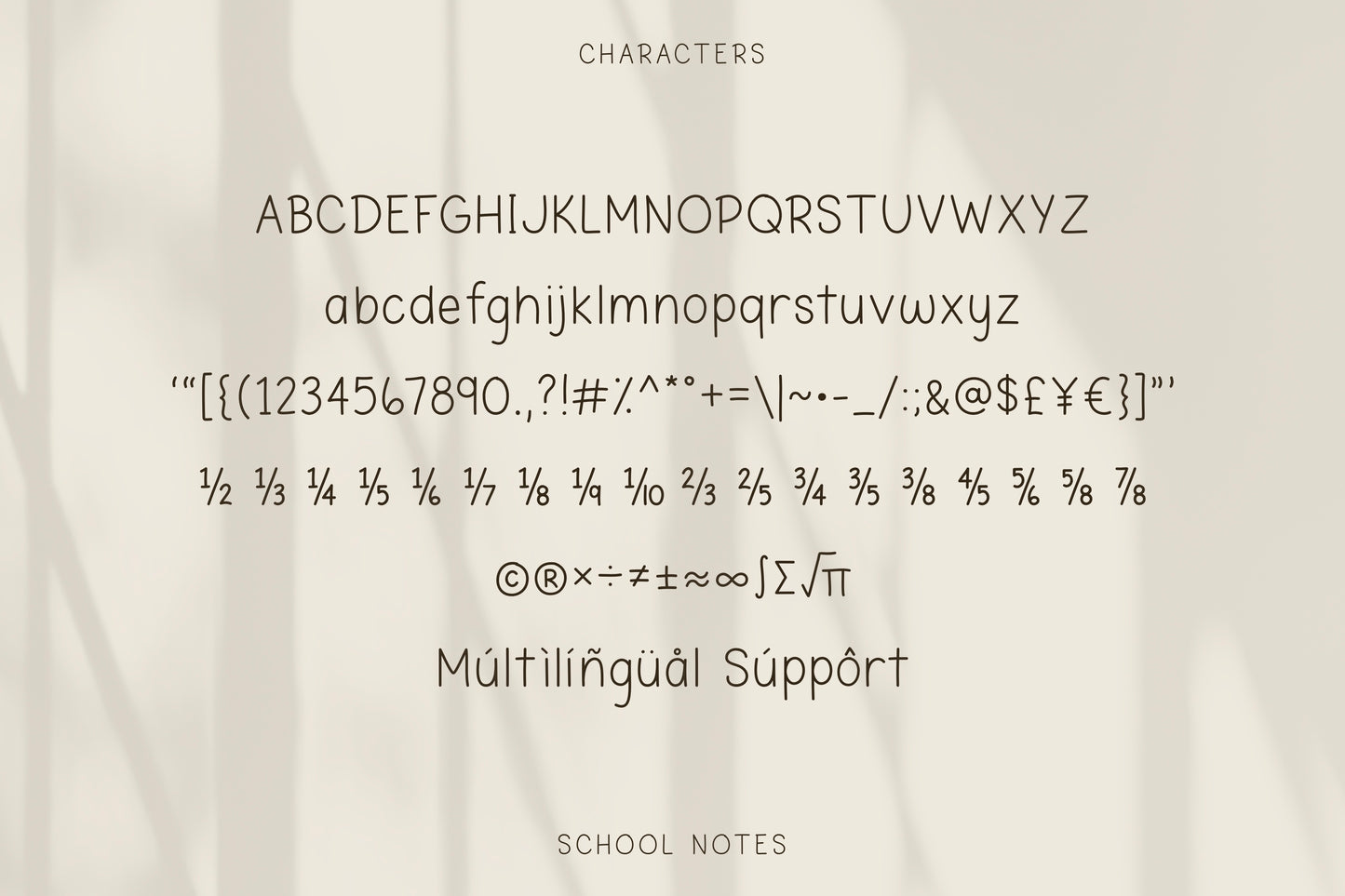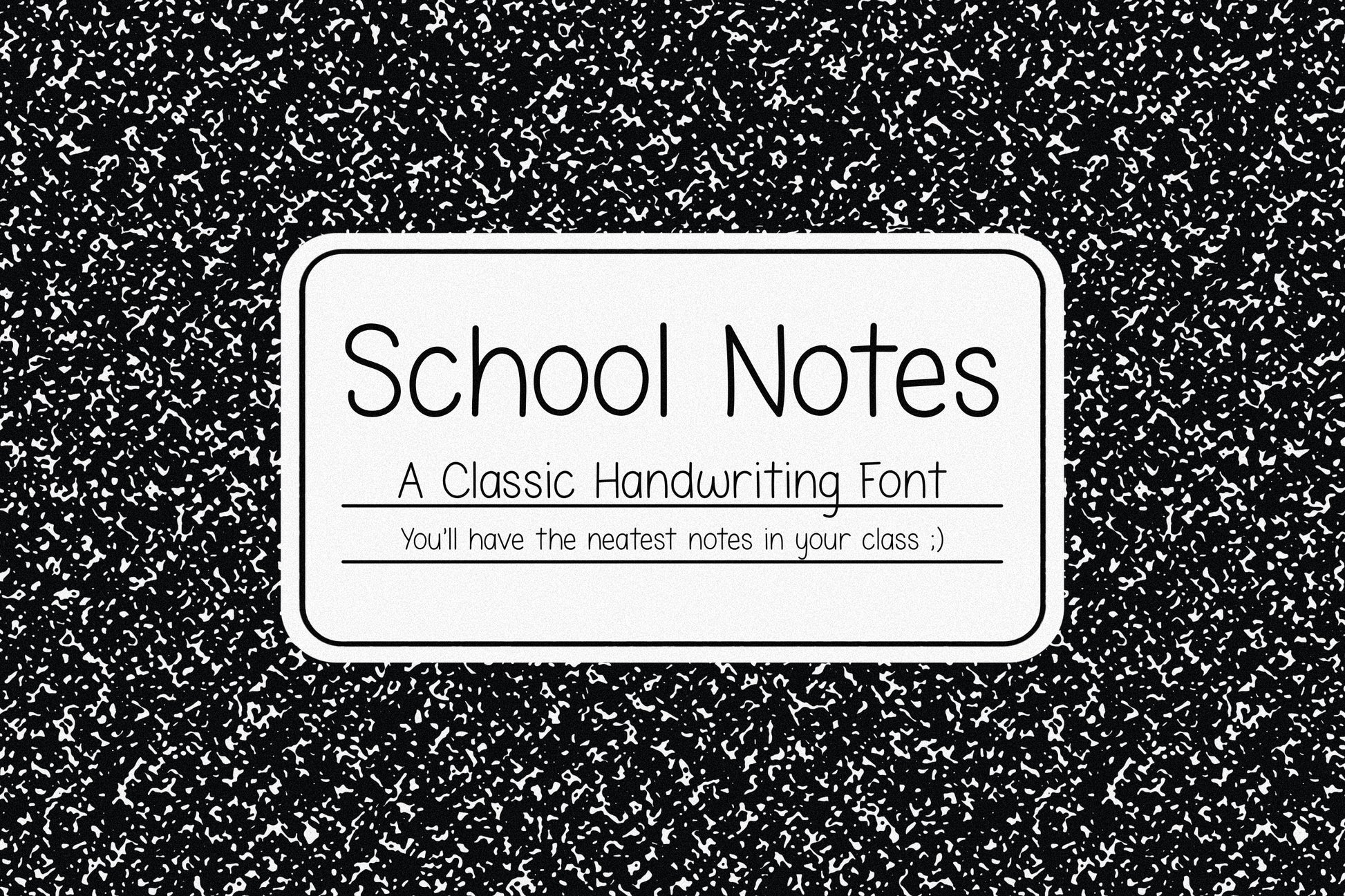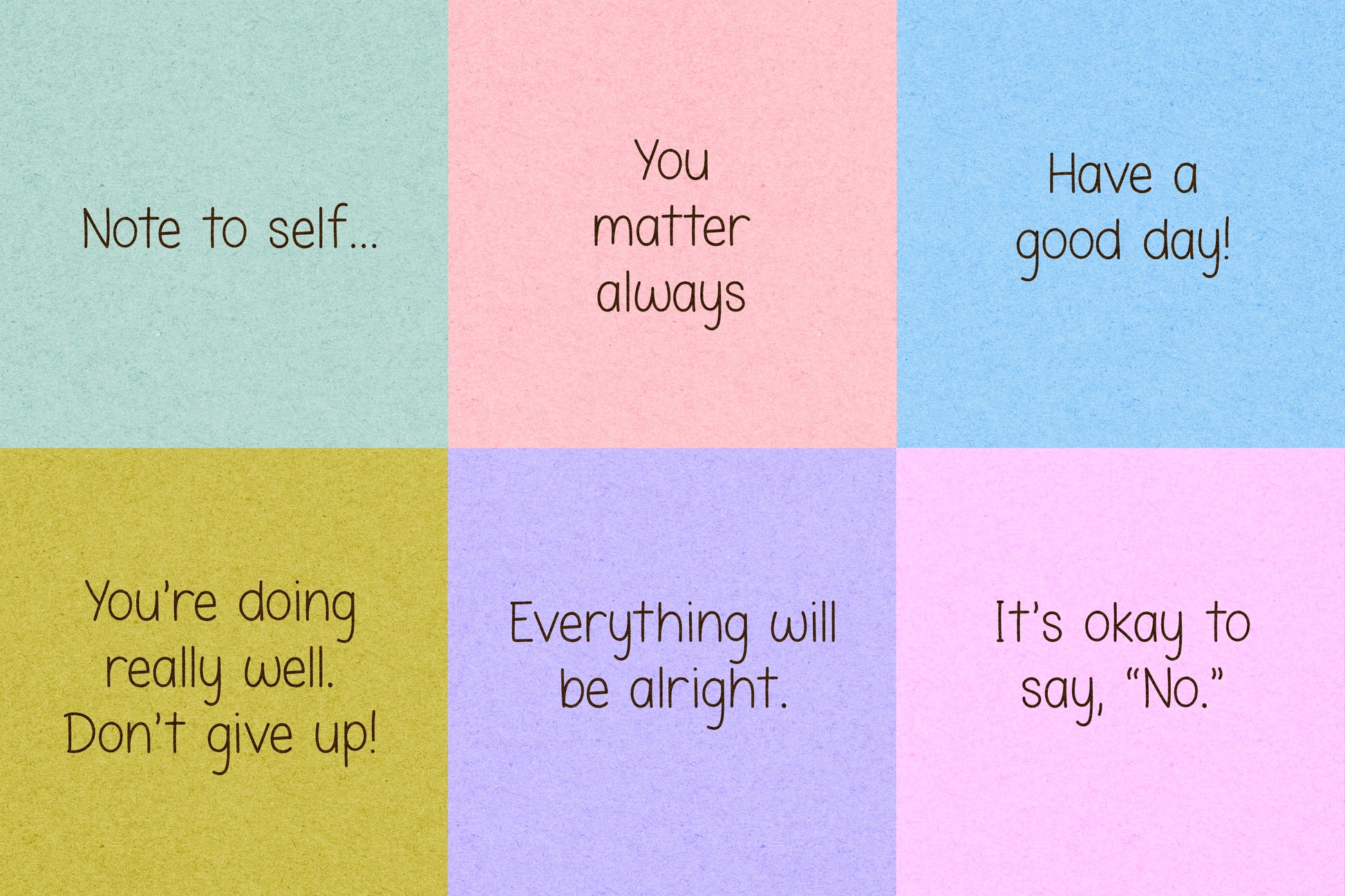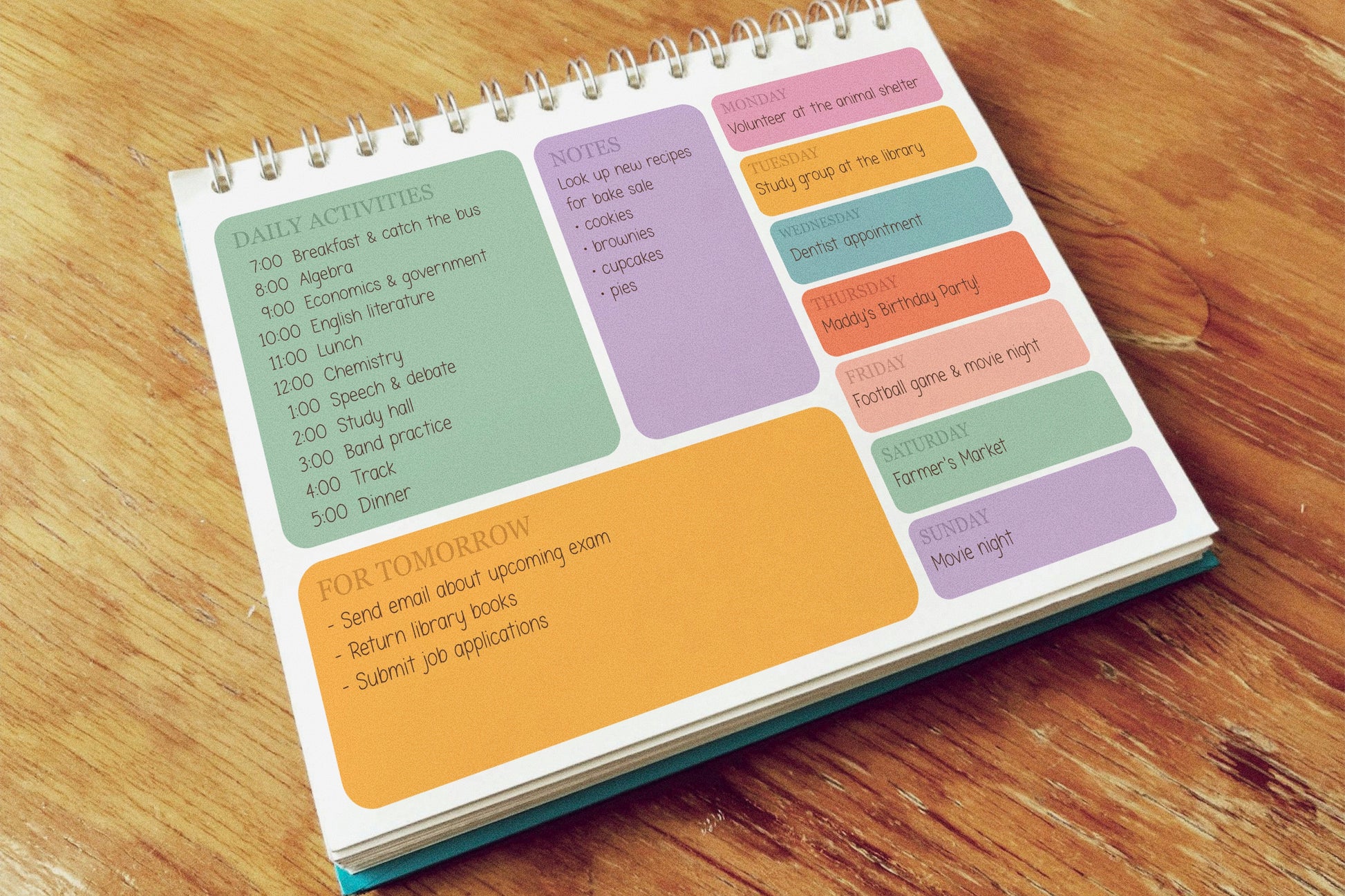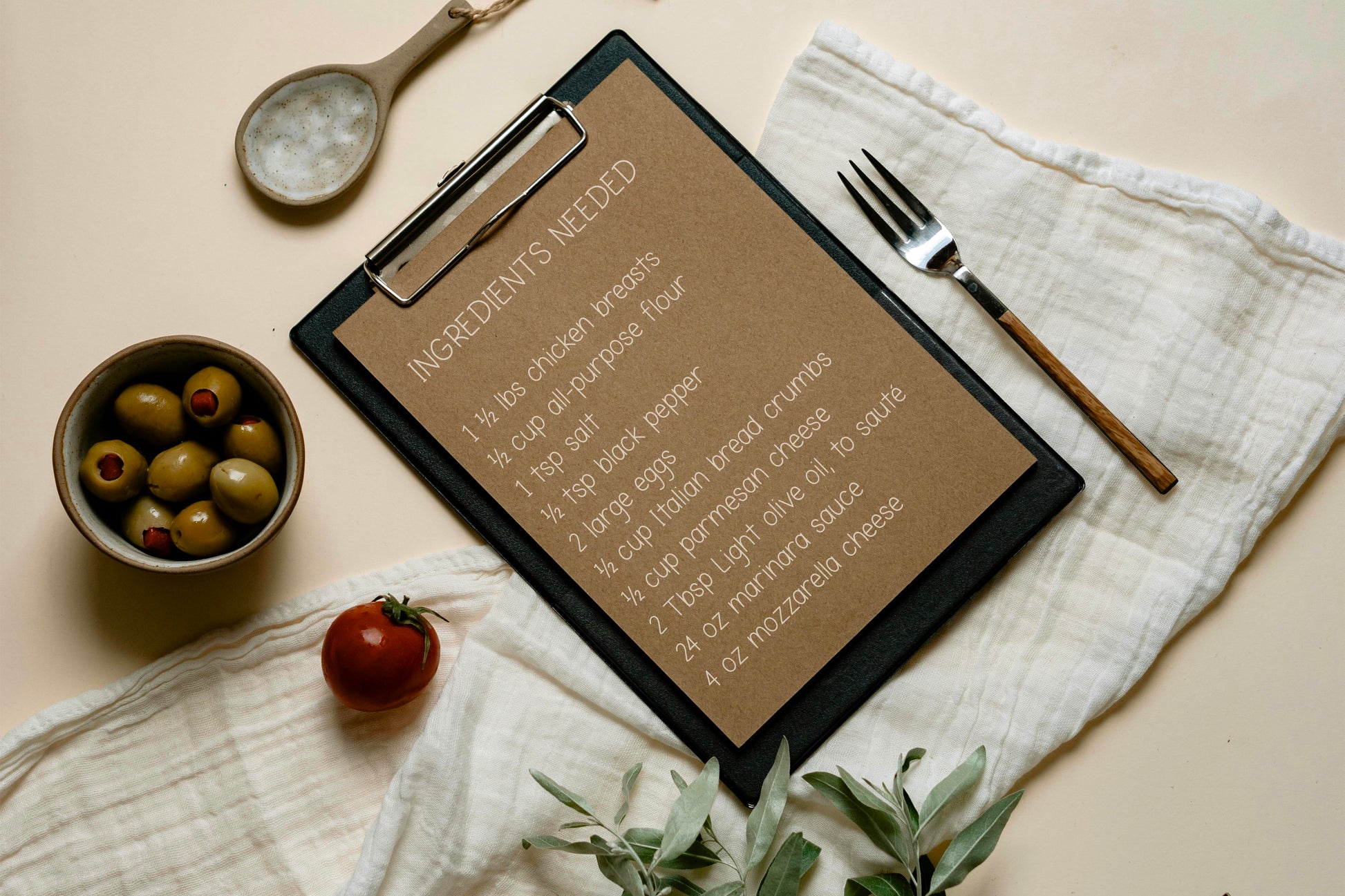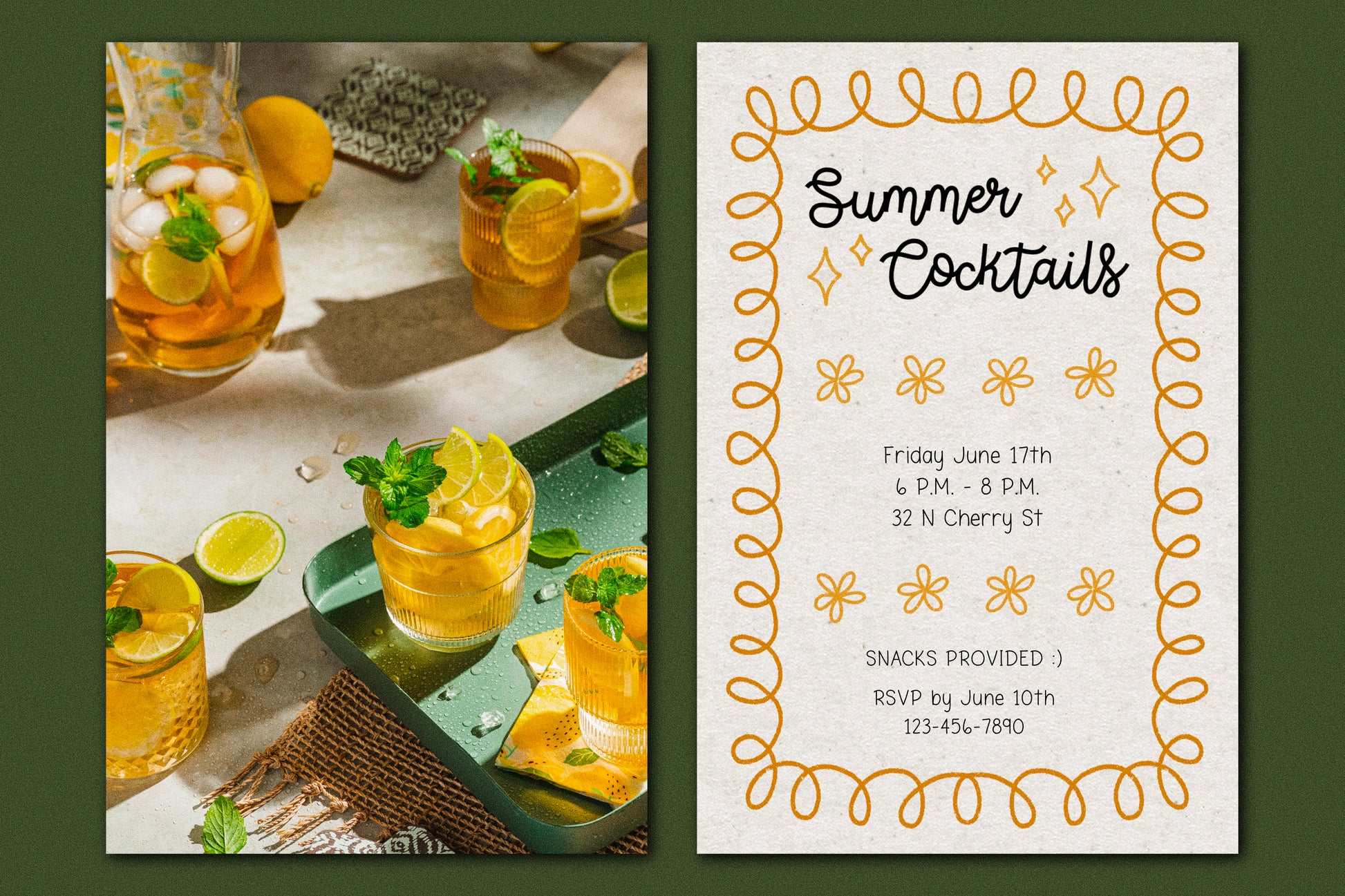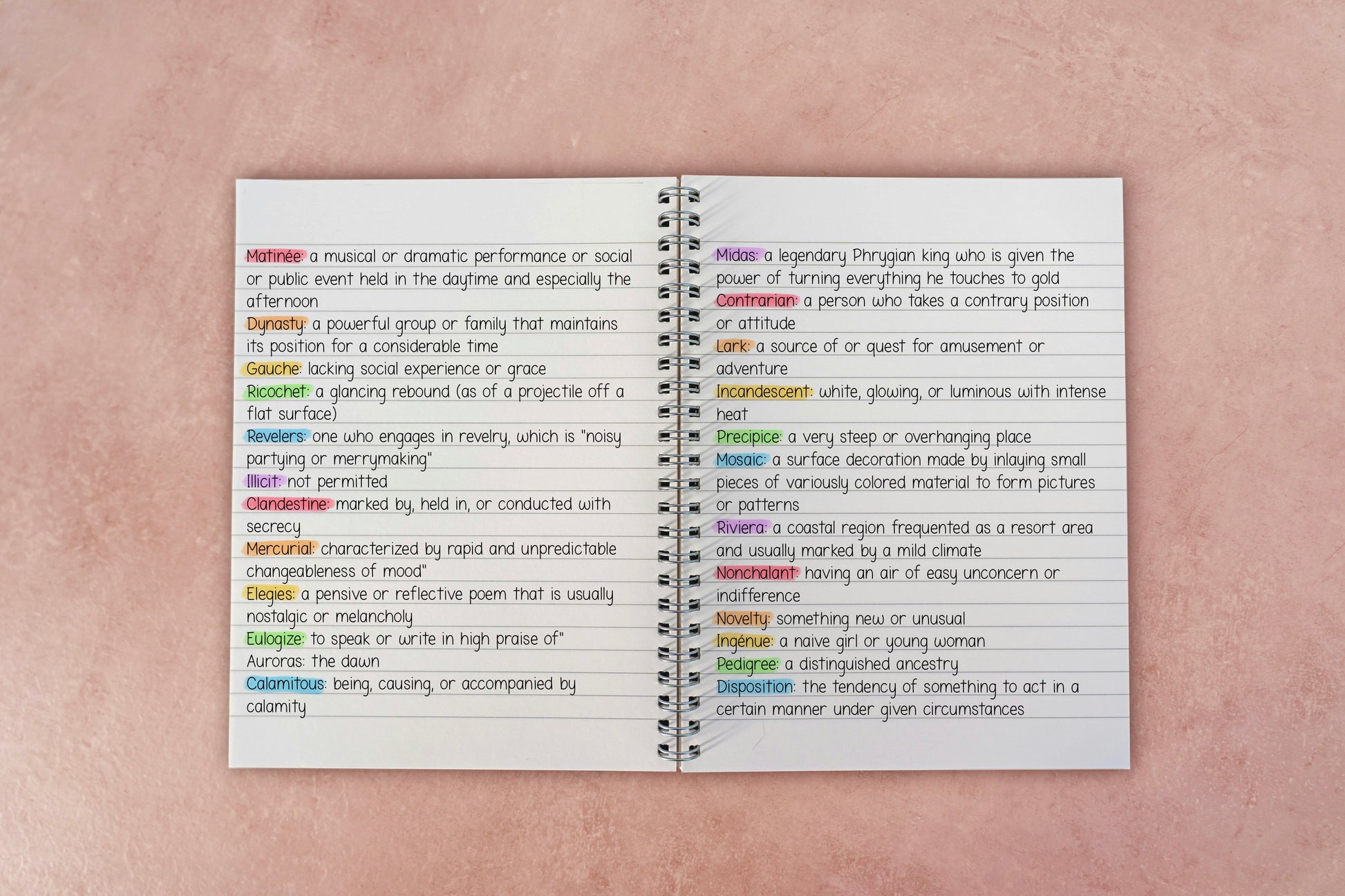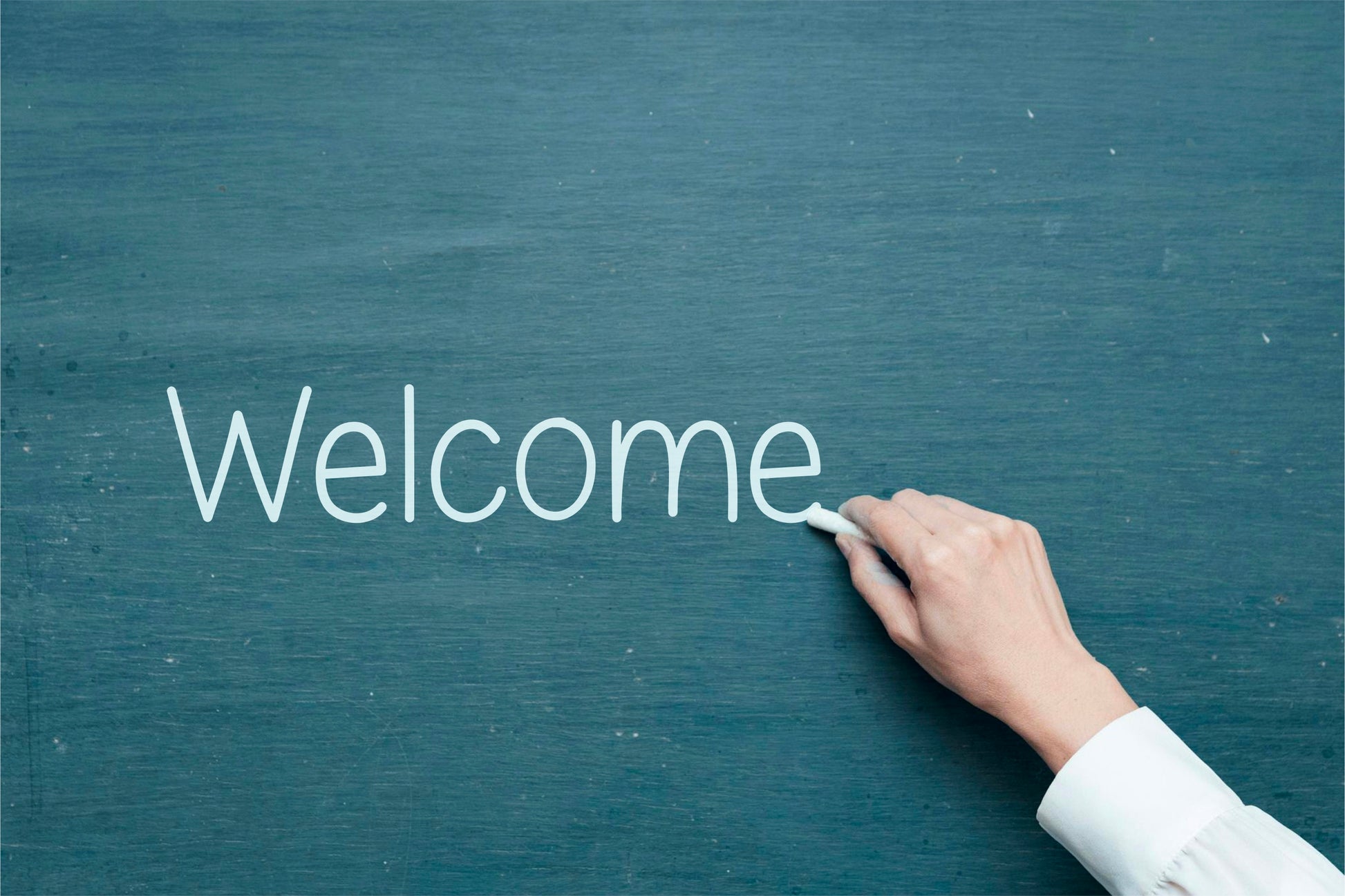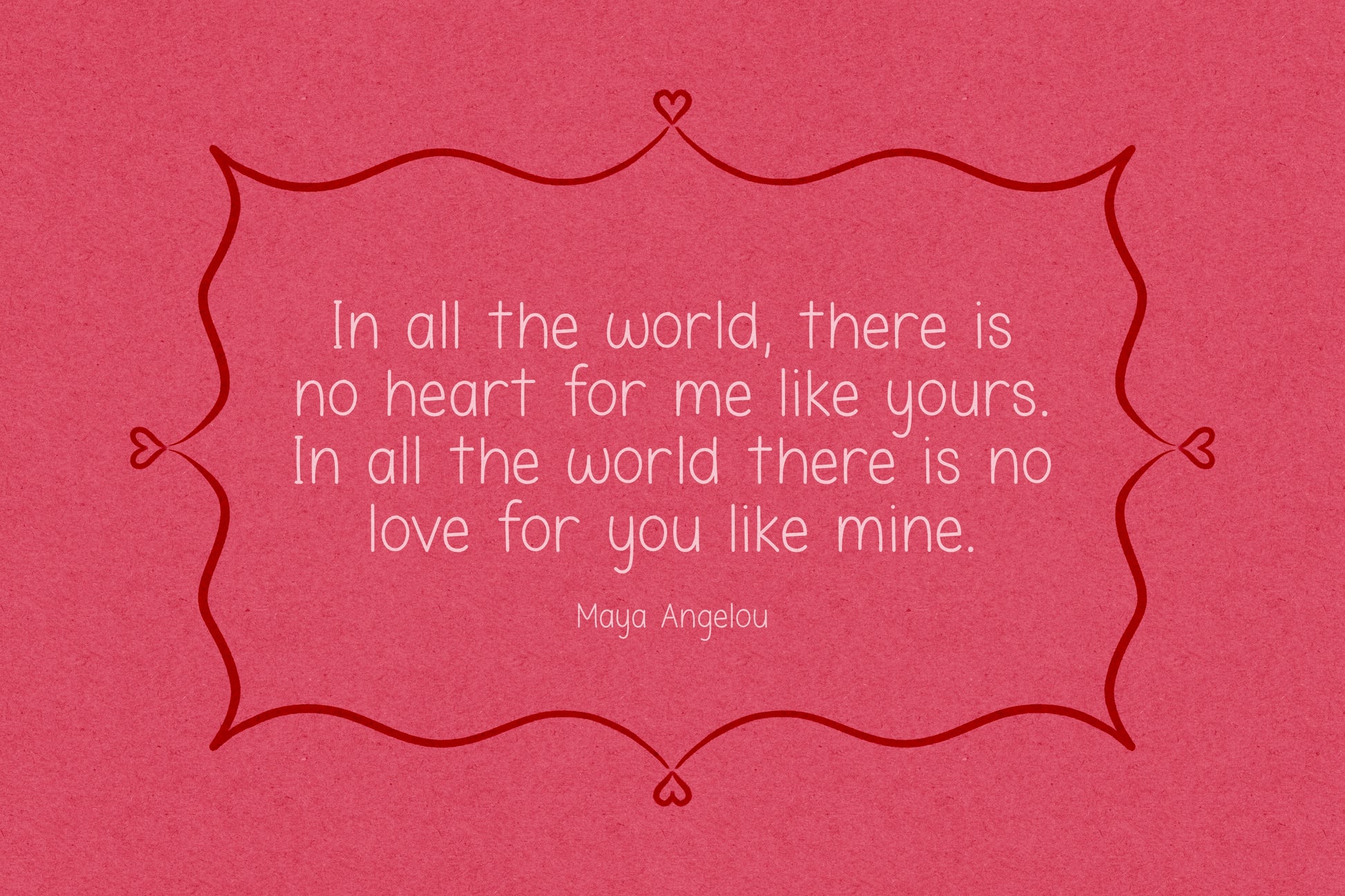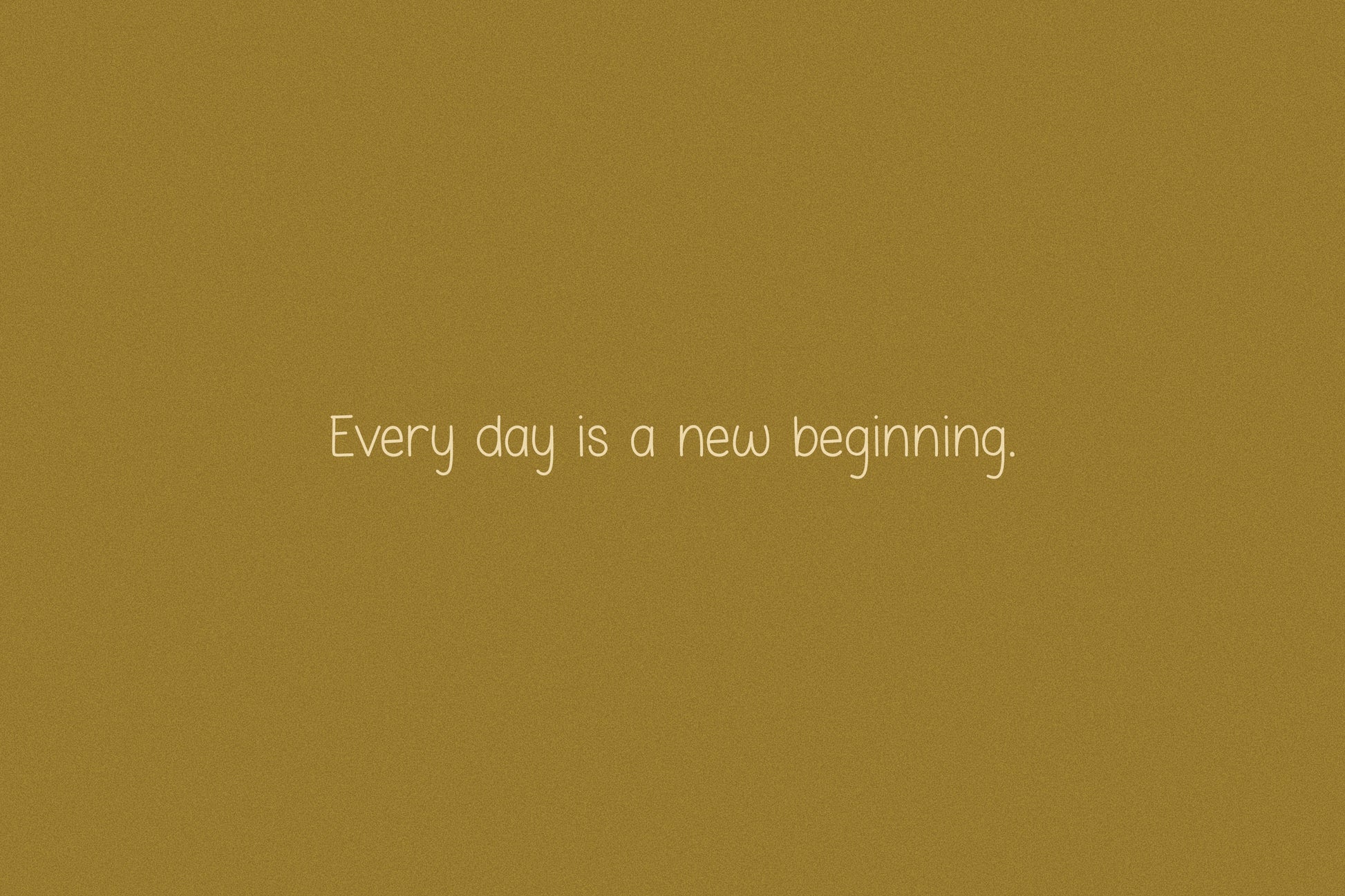
School Notes Handwritten Font
Introducing my most extensive font to date: School Notes! This neat, natural handwriting will give any design a classic & organic feel. Complete with multilingual support, extra math symbols and fractions, this font is perfect for any and all organized note taking, logos, branding, invitations, stickers, t-shirts, posters, and much more!